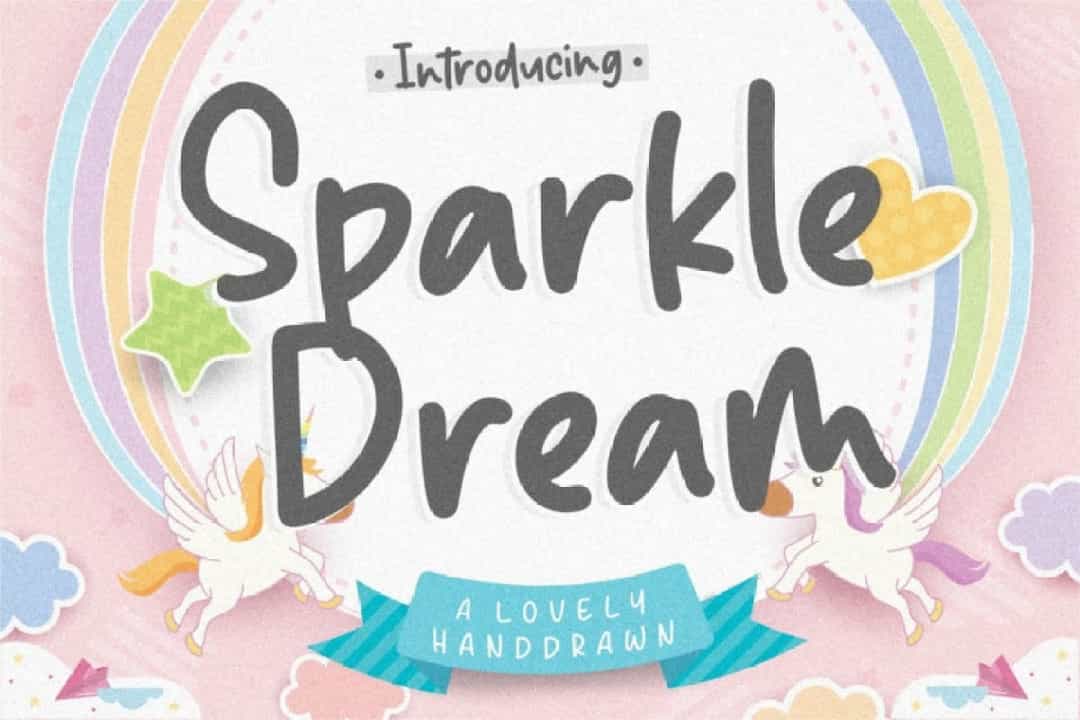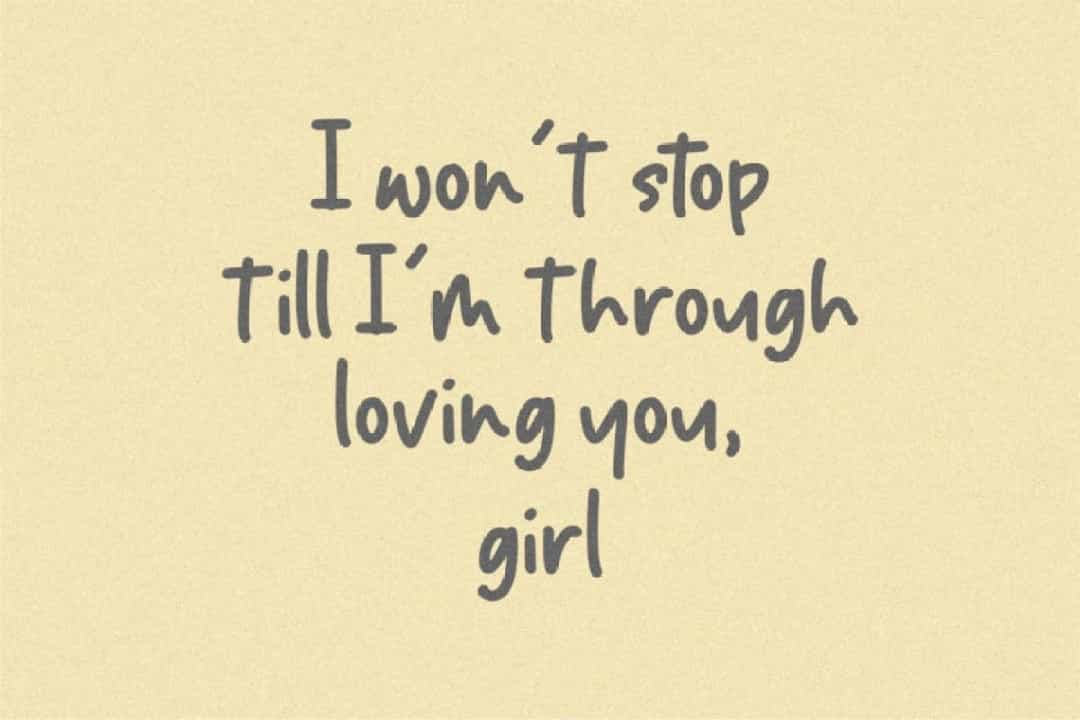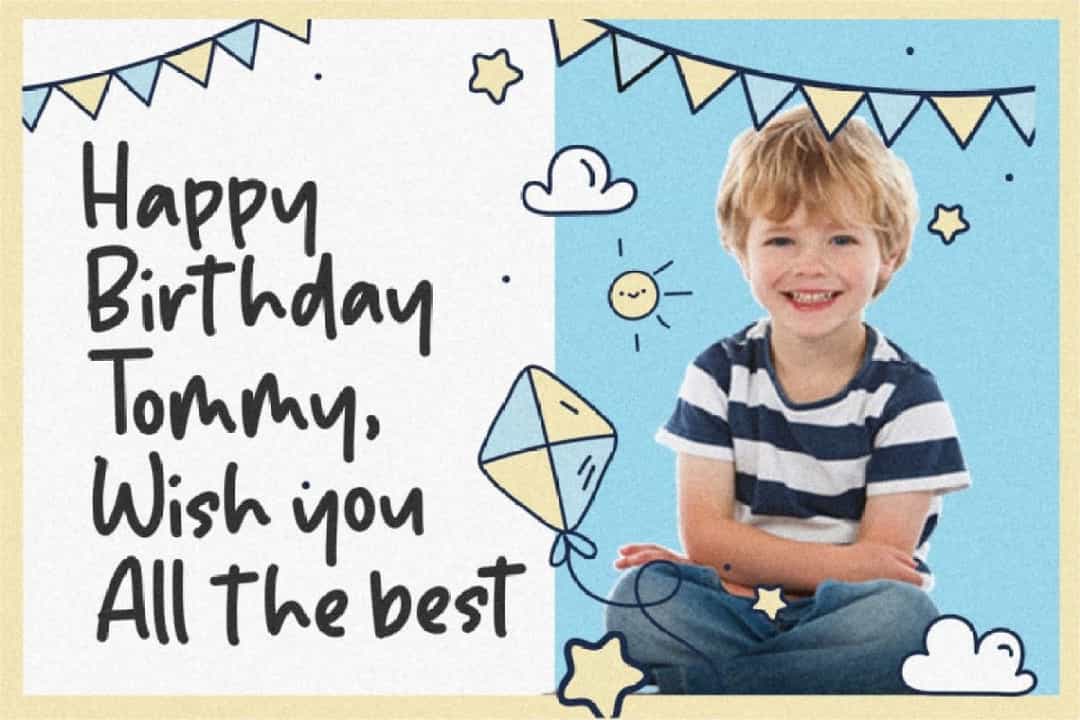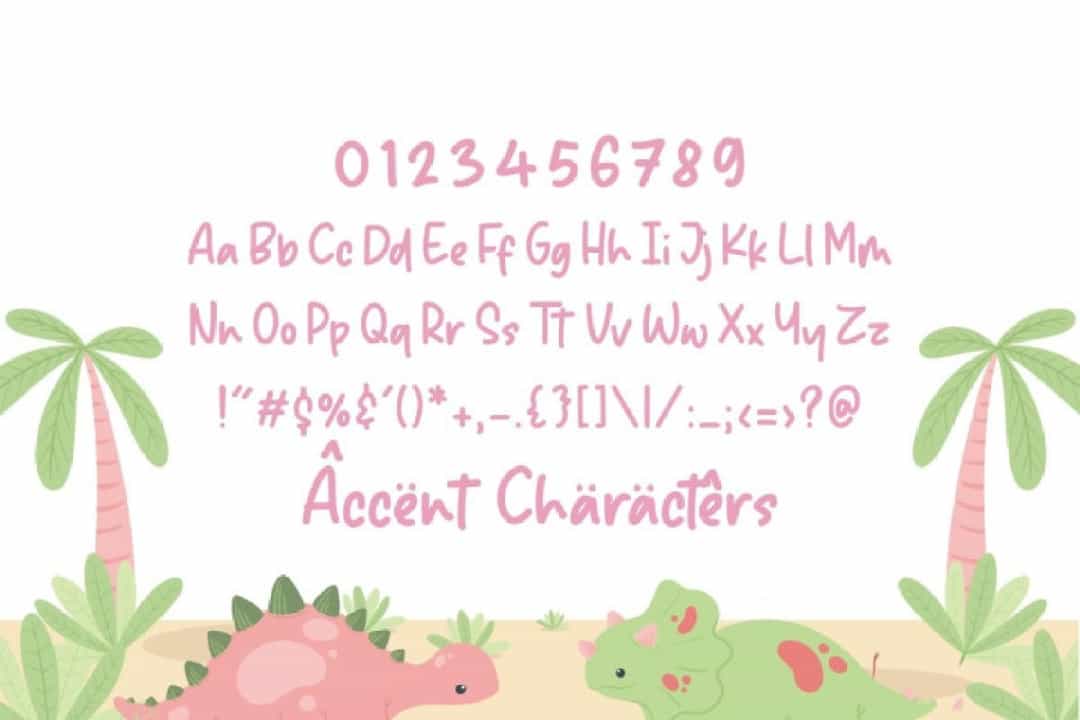
Sparkle Dream handwritten script font, Sparkle Dream is perfect for packaging of products, branding projects, magazines weddings, social media, or to simply express words over the background. This font comes with TTF, Sparkle Dream also supports multilingual characters.